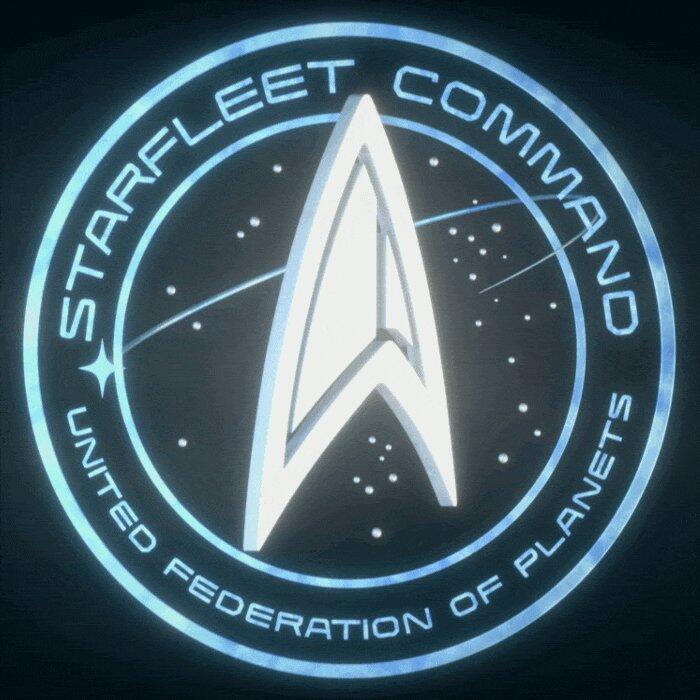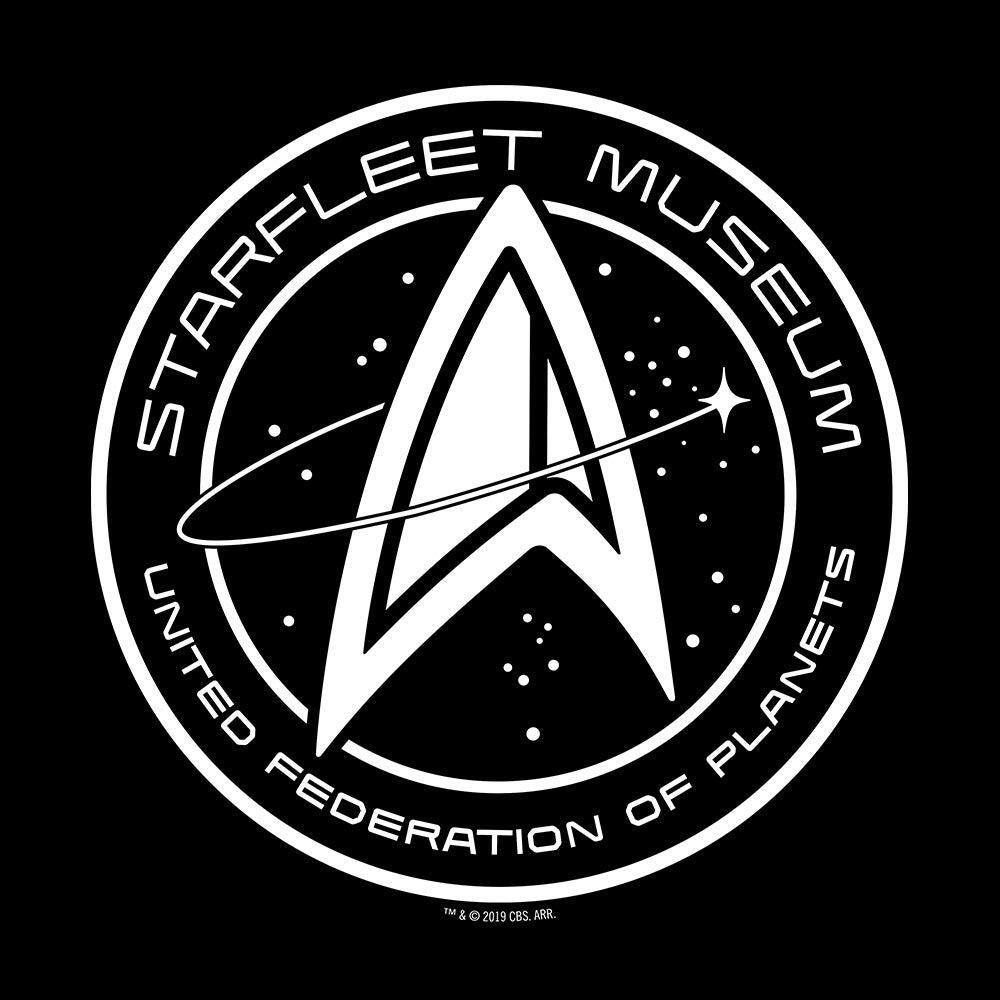
Font for Star Trek Picard Starfleet Command Seal
Hi, I've been trying to identify the font used in Season 1 of Star Trek Picard's Seal for Starfleet Command. In Season 2 and onward, they use Eurostile Candy, however for Season 1 they use a font I have been attempting to ID to no avail. It looks like some variant of Protrakt I think, however some of the letterforms are wrong, and a part of me thinks it might be a hybrid font. If it is, can anyone identify the constituent fonts that make up the font (feel free to specify which letters come from where if you like), and any acceptable alternatives if these fonts are particularly hard to come by.
Here are two samples of this seal, the second of which uses the same font for "Starfleet Museum".